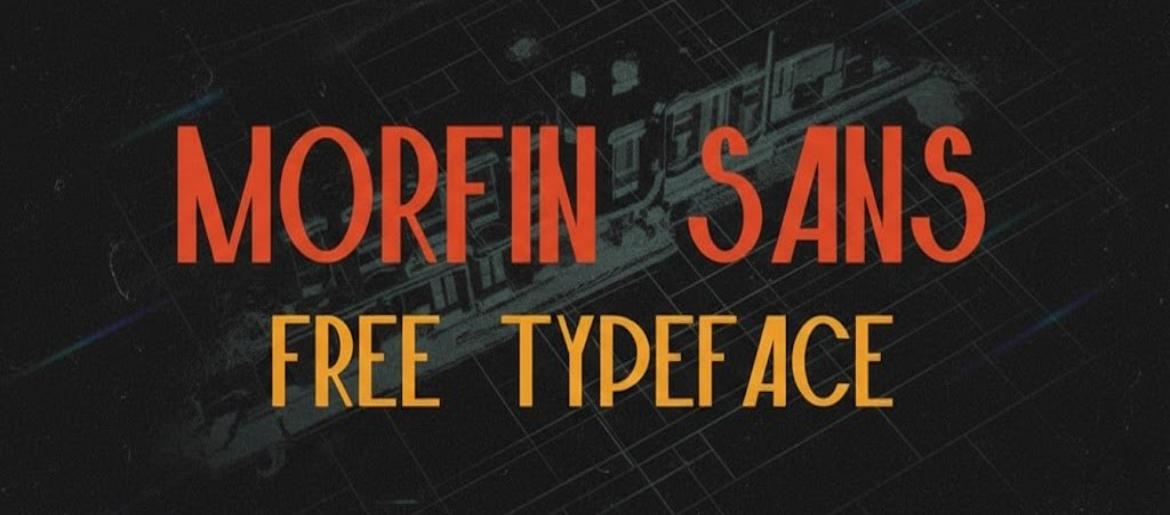
Morfin Sans Font
Morfin Sans Font is a modern sans serif typeface featuring clean geometric construction and balanced proportions. It delivers strong readability and contemporary style, making it suitable for branding, editorial layouts, interfaces, and digital design projects. Its versatile and professional character helps designs stand out while fitting seamlessly into modern and functional free fonts collections.